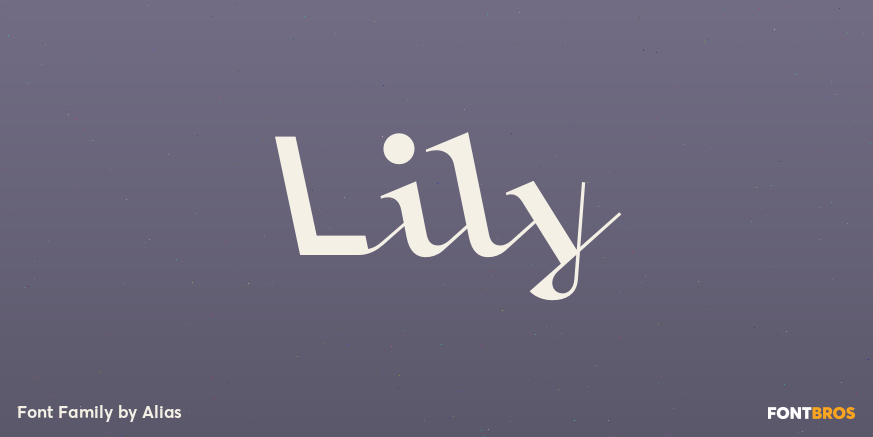
Lily
About Lily
As with all our typefaces, we are searching for a point of difference, something that separates them from their surroundings. The idea of a seriffed script typeface is interesting, as the two are very separate ideas, certainly in calligraphic script lettering…